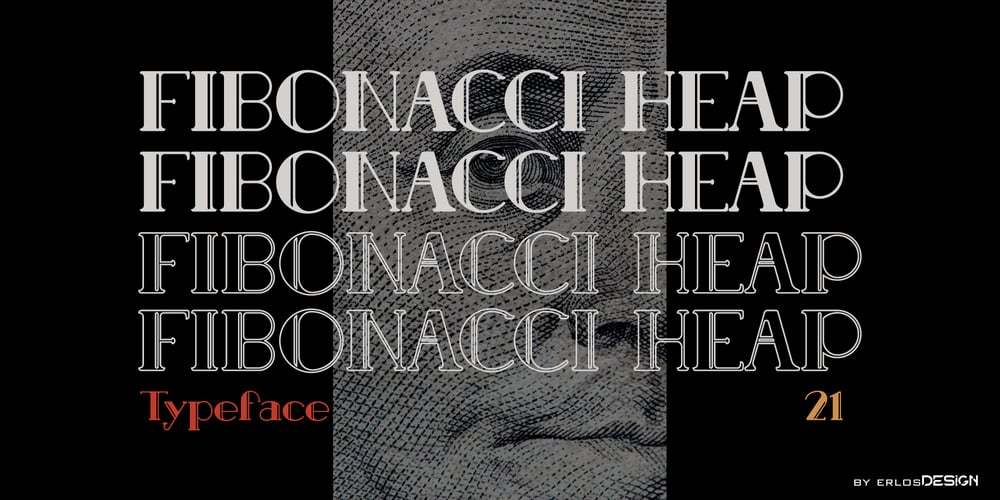
Fibonacci Heap Font Family was designed by Erlangga Suherman and published by ErlosDesign. Fibonacci Heap contains 2 styles and family package options. Fibonacci Heap font is a decorative slab serif, inspired typeface in modern performance. This font includes 2 style Reguler and Outline. It is perfect for logos, posters, headlines, apparel and more.